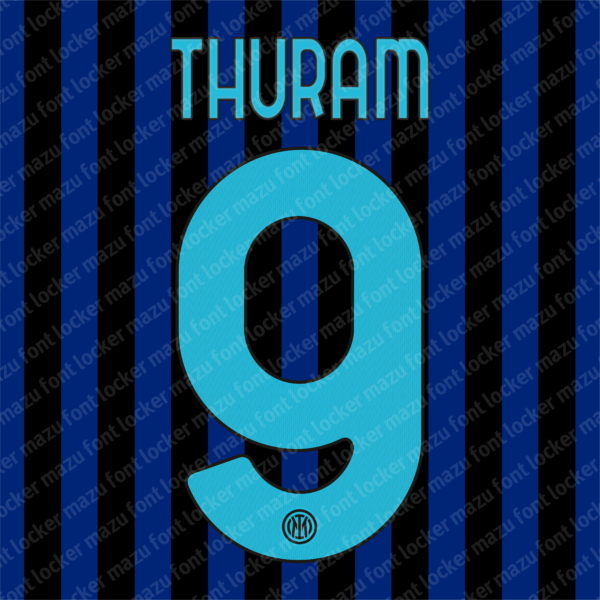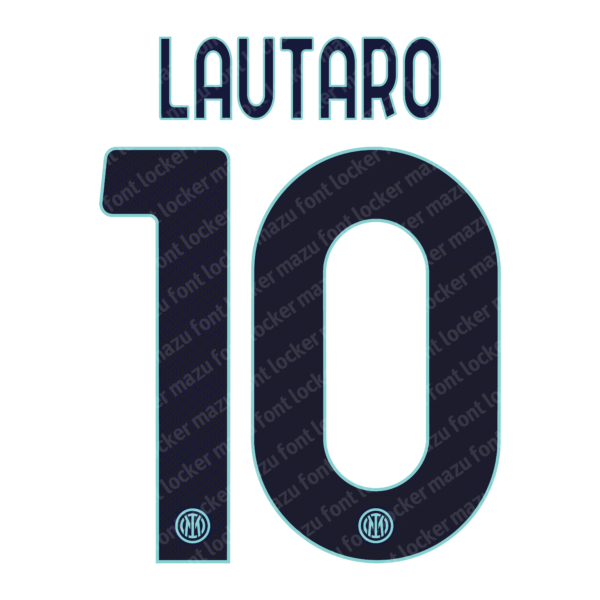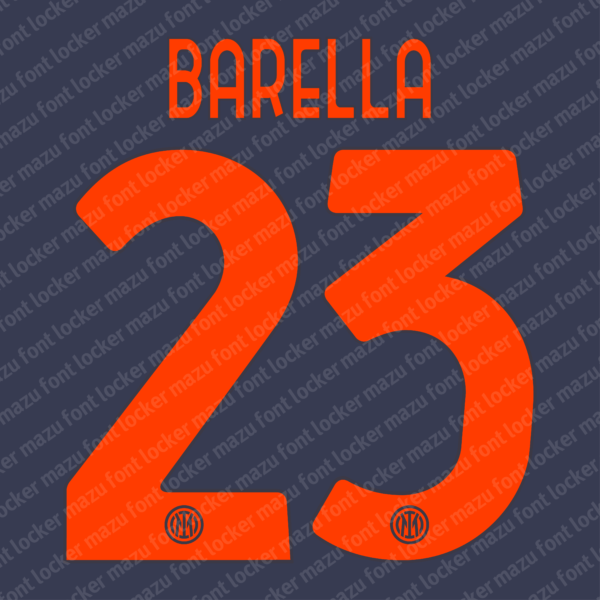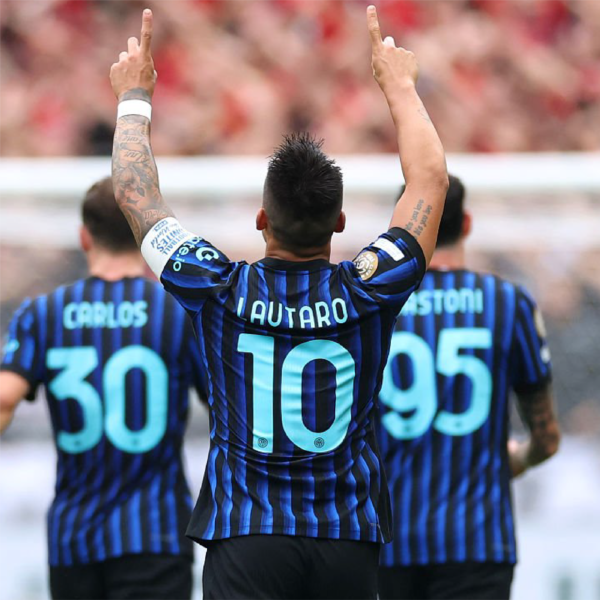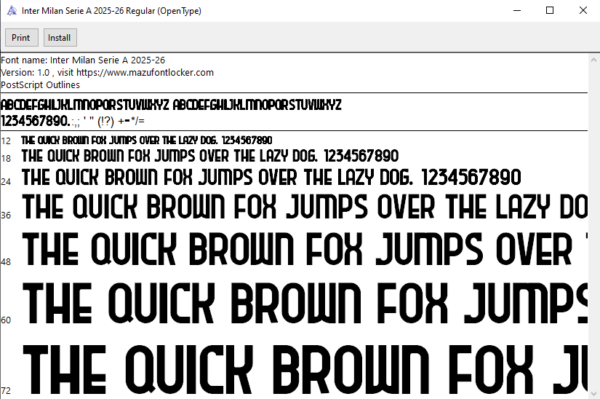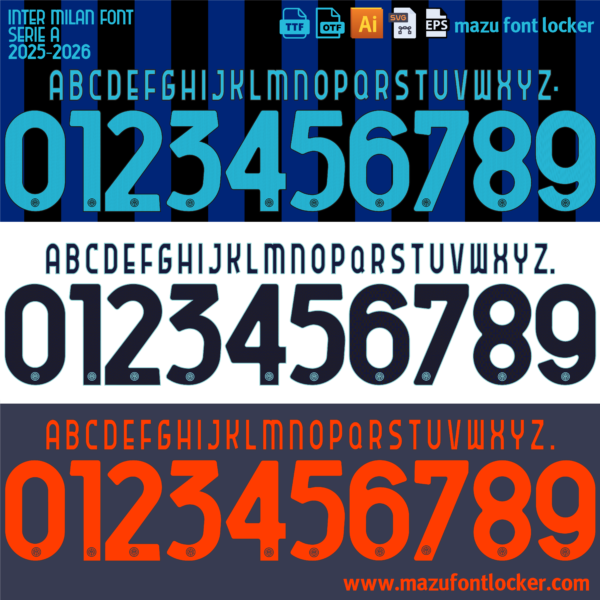
Inter Milan 2025-2026 Font Vector – Legendary Nerazzurri Power
This premium font captures the sharp, modern, and ruthlessly powerful match lettering that embodies the Nerazzurri identity — delivering authentic Milanese intensity, explosive San Siro atmosphere, defensive steel, tactical precision, relentless counterattacking energy, legendary European ambition, and the unstoppable black-and-blue roar that defines Inter’s rise on the continental stage.
Inter Milan 2025-2026 Font Vector – Futuristic Nerazzurri Identity Typeface Evolution
The Inter Milan 2025-2026 Font Vector is a premium typeface inspired by the official match lettering used by FC Internazionale Milano during the 2025-2026 season. This high-quality vector font kit reflects the club’s modern visual identity shift under Nike, combining the classic Nerazzurri tradition with a futuristic, pattern-integrated typography style designed for maximum visibility and branding impact.
Built for professional designers, football creators, and dedicated Inter supporters, the Inter Milan 2025-2026 Font Vector delivers an authentic match-ready aesthetic for jersey mockups, Champions League graphics, merchandise design, social media visuals, and fan artwork. It complements the iconic black-and-blue striped kit where subtle internal pattern detailing is now a defining feature of the club’s visual direction.
Why Choose Inter Milan 2025-2026 Font Vector
This font stands out due to its modern league-standard structure combined with Inter’s evolving branding language. The Serie A 2025-2026 season continues to use a unified numbering system, but Inter’s kit design introduces custom internal stripe and embossed detailing, making the lettering feel integrated into the shirt itself rather than just overlaid.
Whether you’re creating realistic kit concepts or high-end football graphics, the Inter Milan 2025-2026 Font Vector delivers a clean, sharp, and professional finish that matches the club’s elite European identity.
The lettering features a bold sans-serif construction with slightly condensed proportions for clarity on striped backgrounds. The design prioritizes readability while blending seamlessly with Inter’s “Il Biscione” inspired visual themes, including subtle pattern integration within shirt graphics.
The numerals are structured, high-contrast, and optimized for broadcast visibility across Serie A and UEFA competitions. The spacing is carefully balanced to maintain legibility over complex jersey textures, including snake-scale and stripe hybrid patterns used in the 2025-2026 kit generation.
• Reflect the club’s futuristic branding evolution under Nike design language
Inter Milan 2025-2026 Season
The 2025-2026 season represents a continued evolution of Inter Milan’s identity, with Nike introducing more expressive design elements across kits, including hidden “INTER” patterns embedded within the classic black-and-blue stripes. :contentReference[oaicite:4]{index=4} This approach blends tradition with innovation, reinforcing the club’s historic identity while pushing modern kit design boundaries.
Competing in Serie A, Coppa Italia, and the UEFA Champions League, Inter continues to operate as one of Europe’s elite clubs, with its visual identity now more integrated into shirt design than ever before. The season also reflects Milan’s growing role as a global sports and design hub ahead of major international sporting events.
The Inter Milan 2025-2026 Font Vector is an independently designed typeface package inspired by the official shirt lettering used during the 2025-2026 season. It is intended for creative design work, jersey mockups, football artwork, and fan-based projects.